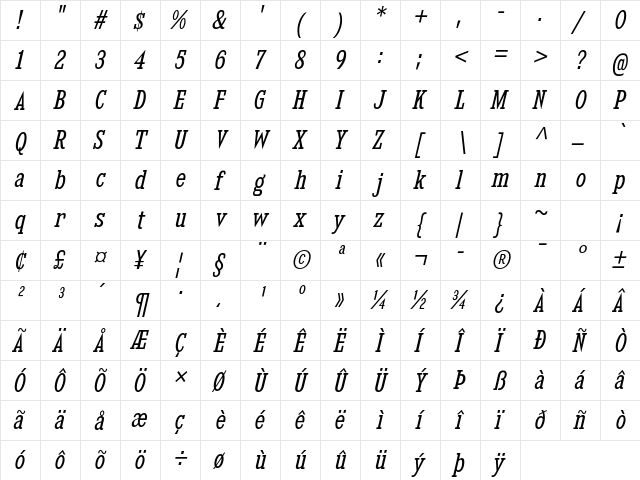
Kingsbridge Condensed Book Italic
Condensed Book Italic · Ray Larabie Ray Larabie ·
Design Context for Kingsbridge Typeface
Kingsbridge takes a measured approach to typography — its balanced proportions and neutral character make it a reliable workhorse for both digital and print work. The dynamic lean of this cut emphasises speed and emphasis in any layout. The condensed width makes it efficient for tight spaces without sacrificing legibility.
Pro Tip: Try Kingsbridge for annotation and caption copy alongside an upright companion — the contrast in angle creates a dynamic but ordered typographic system.